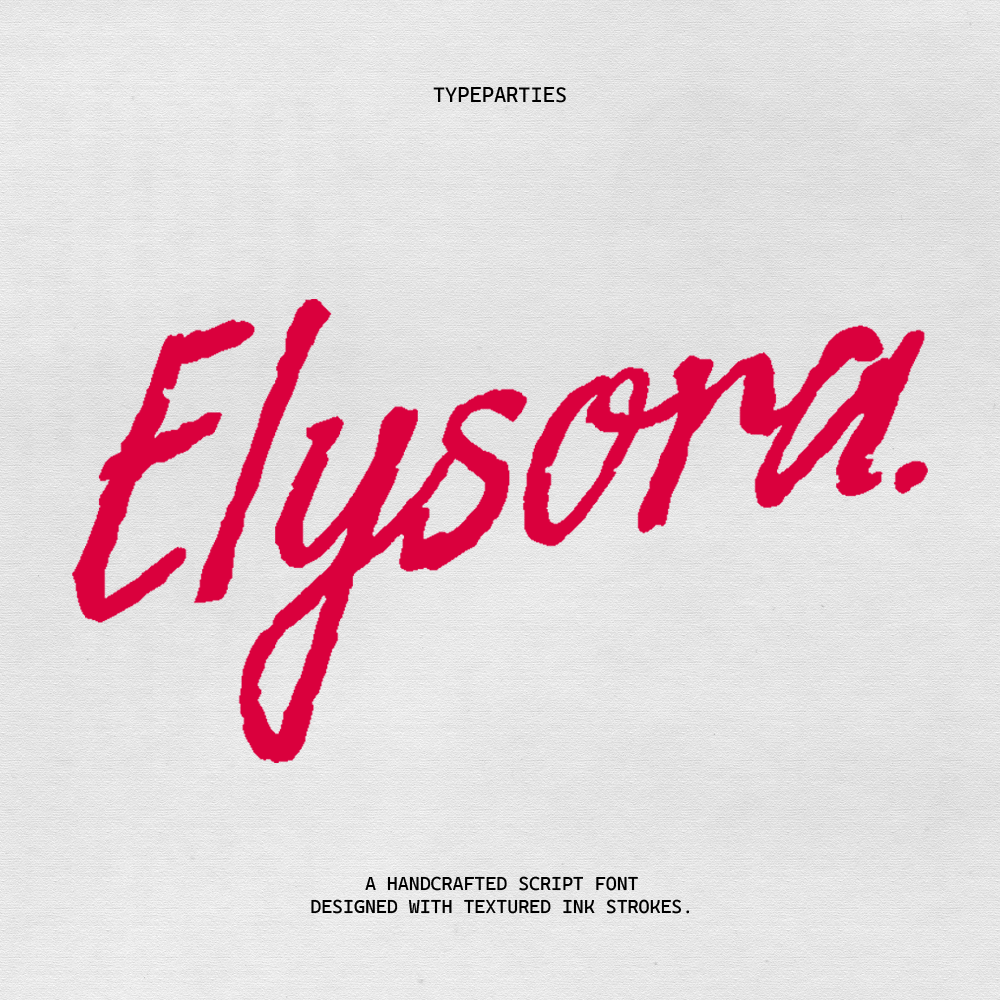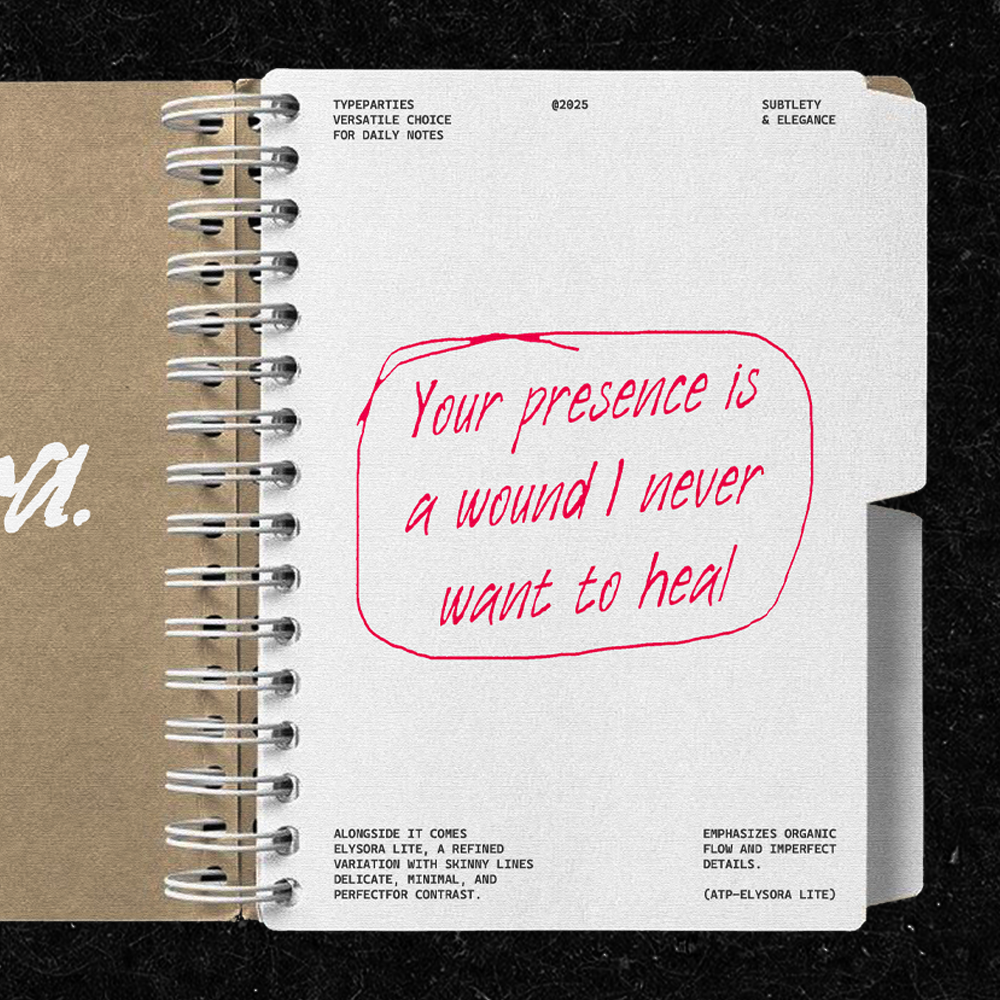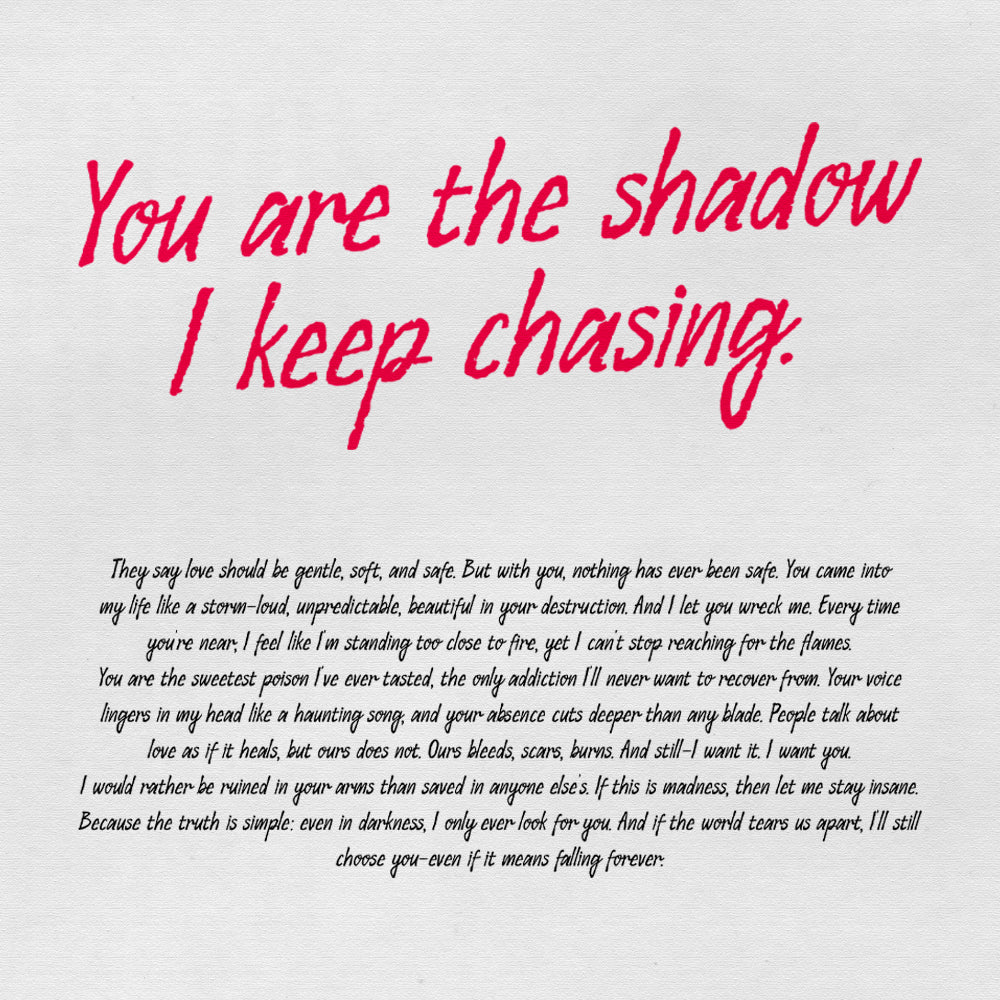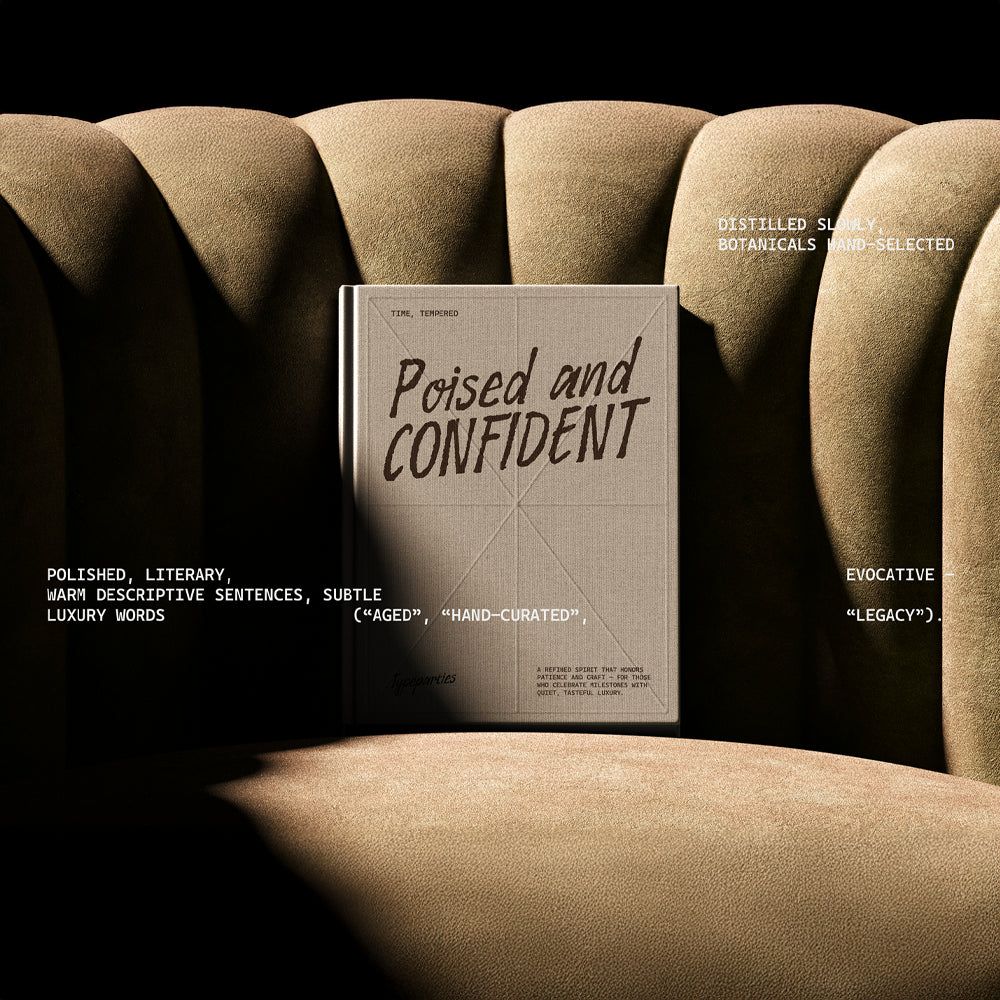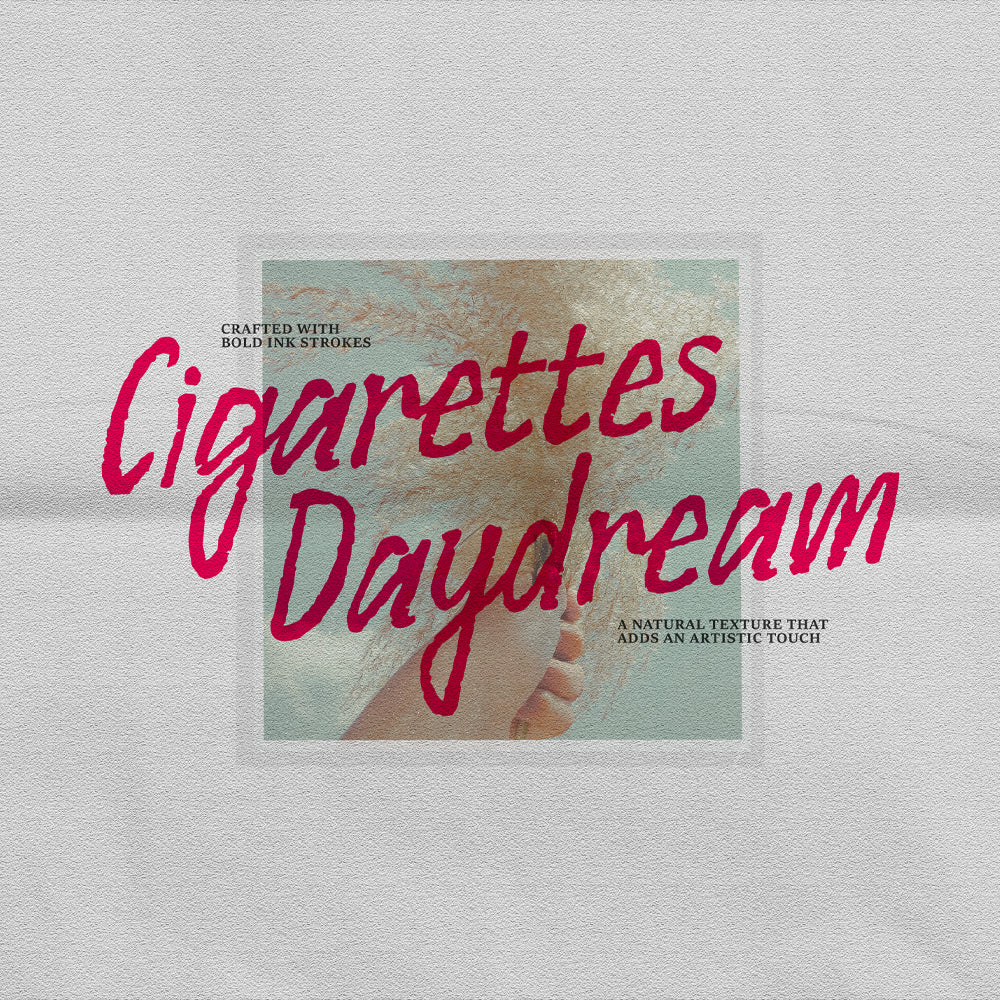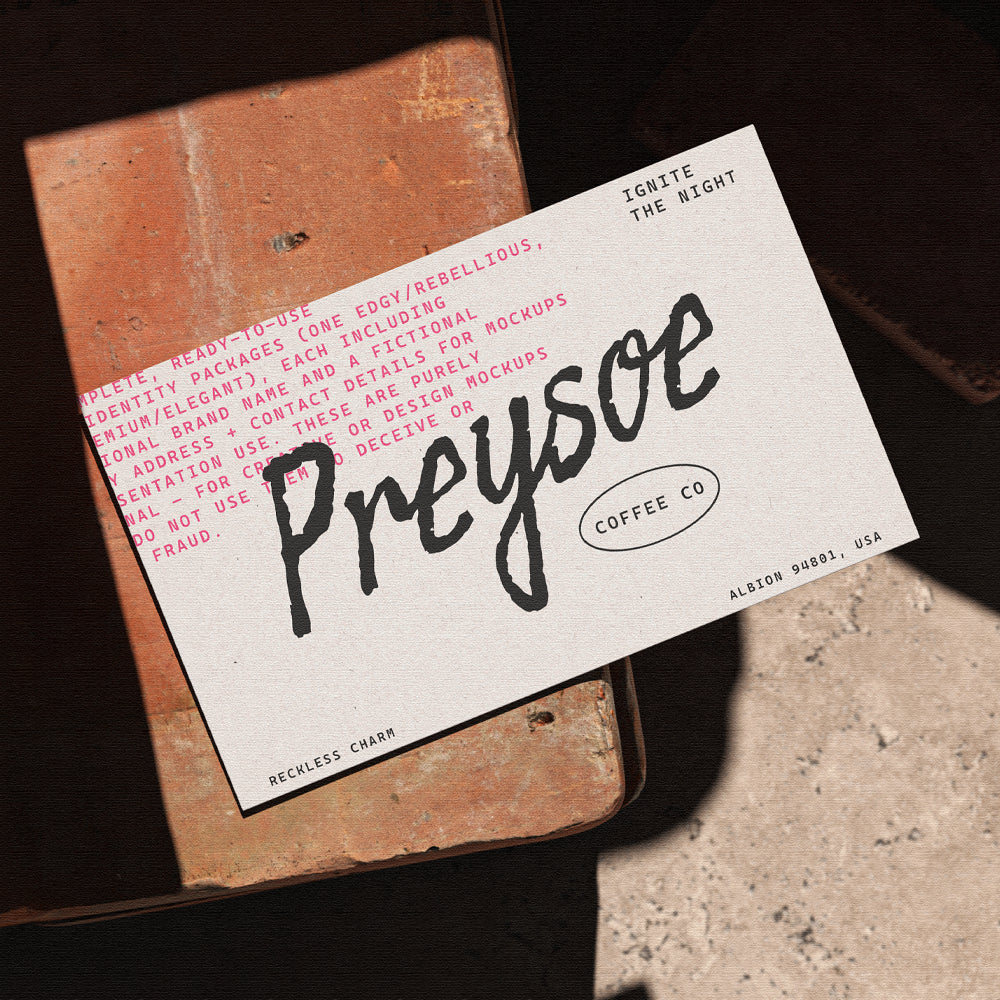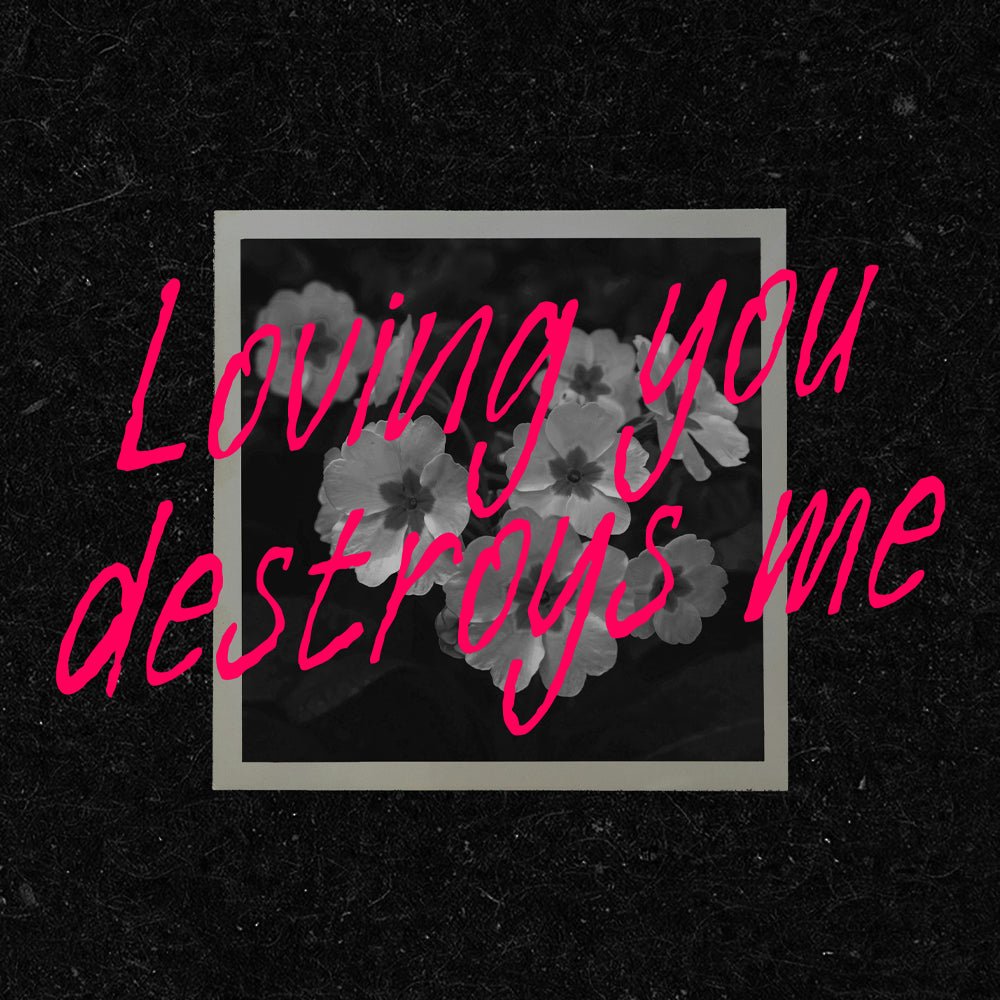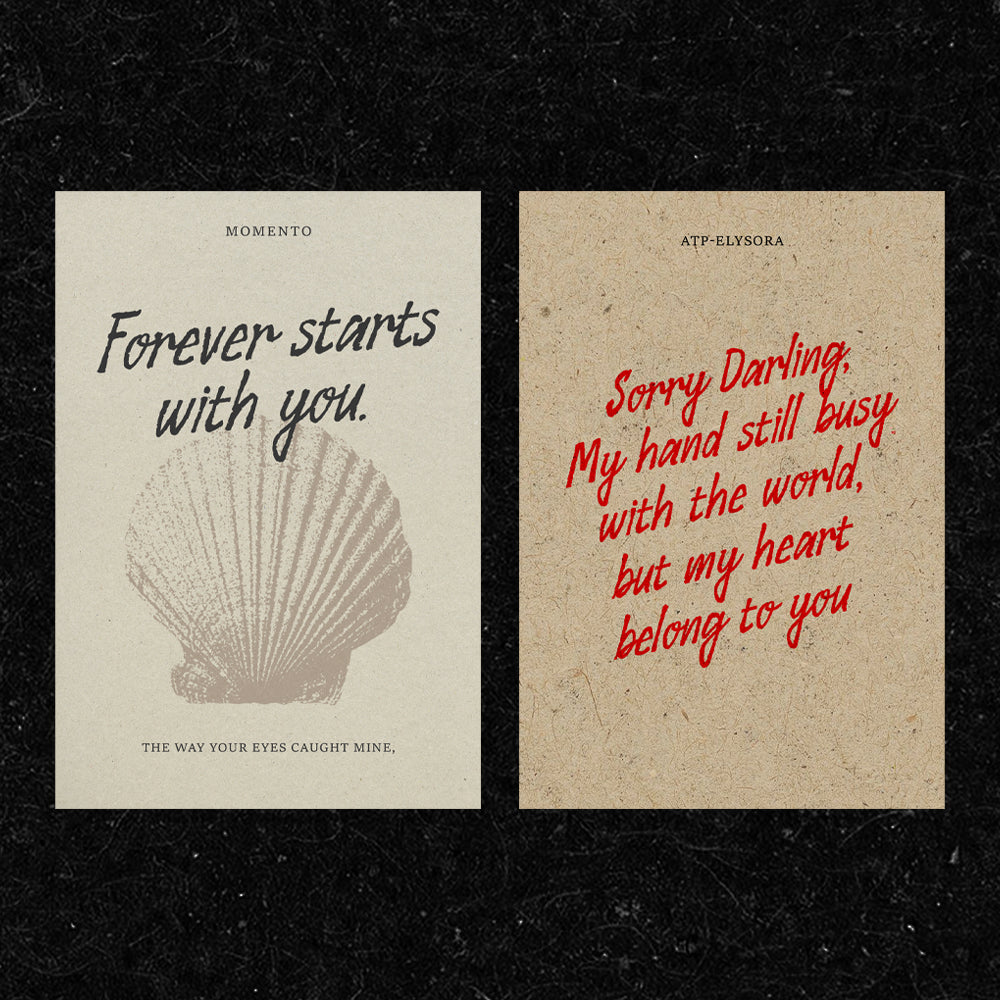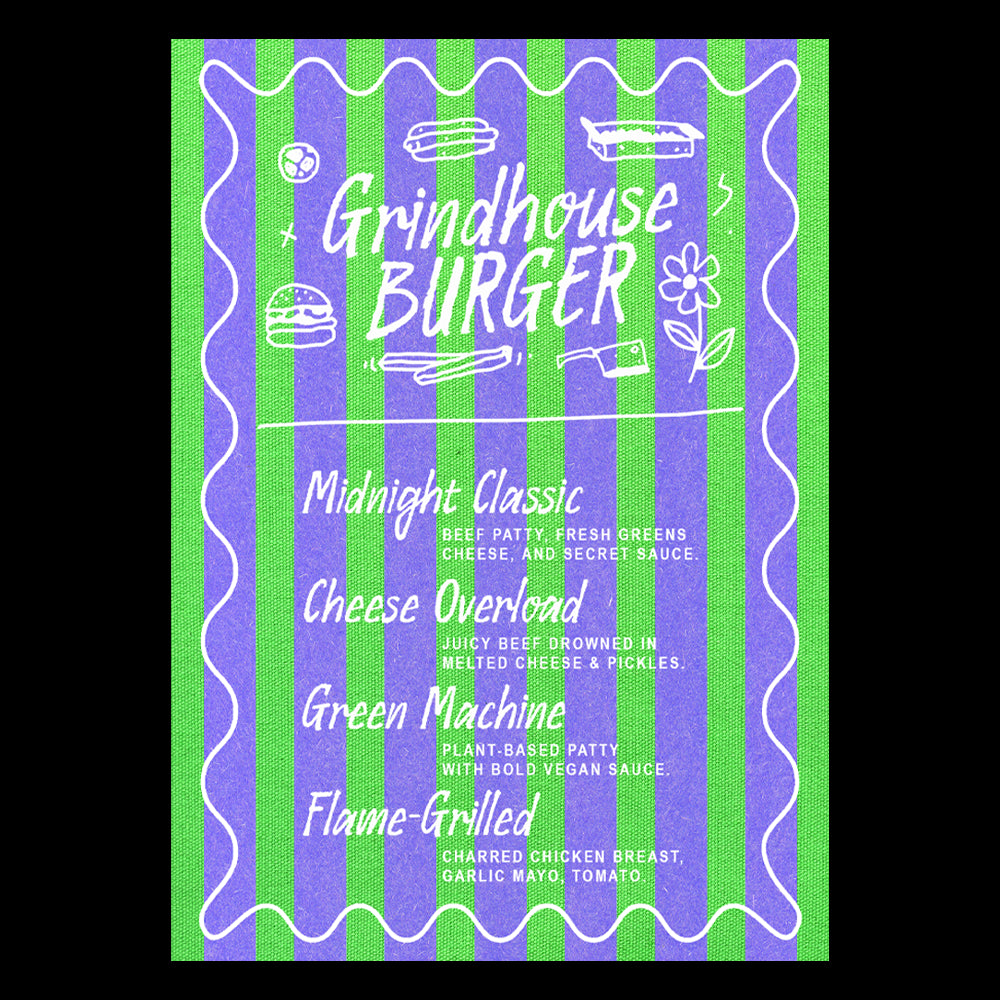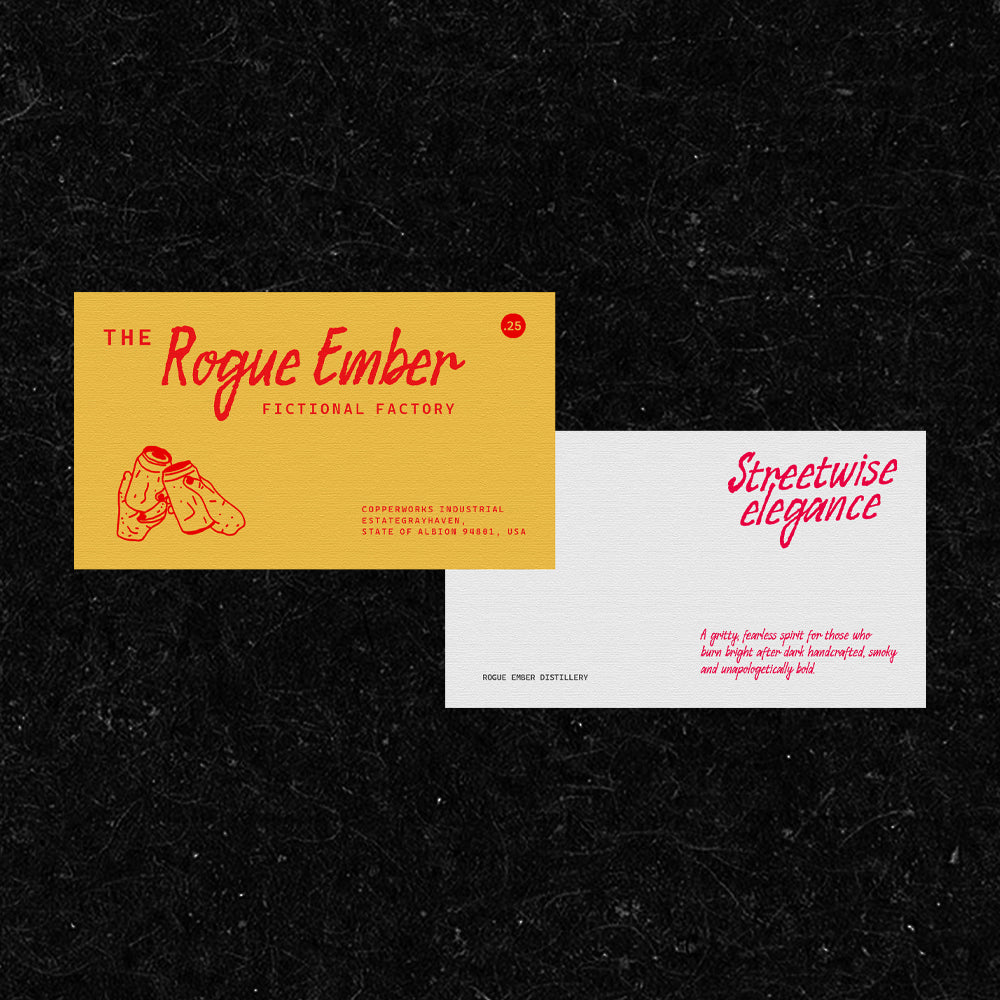
Elysora - Textured Handwritten Script Font
Elysora is a handcrafted script font featuring bold, ink-heavy strokes and expressive curves, designed to mimic the textured flow of old handwritten manuscripts. It includes Elysora Lite, a refined variation with skinny lines, and both styles are available in .otf and .ttf formats, offering uppercase, lowercase, numerics, punctuation, and multilingual support.